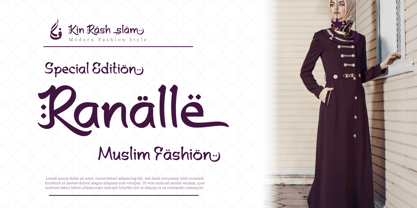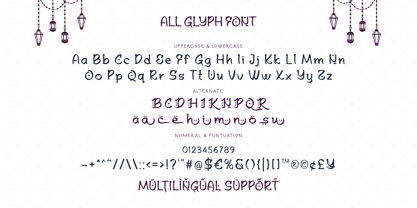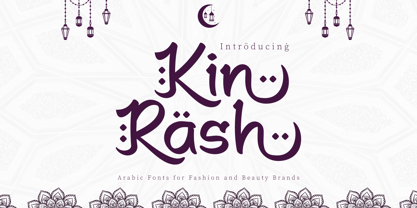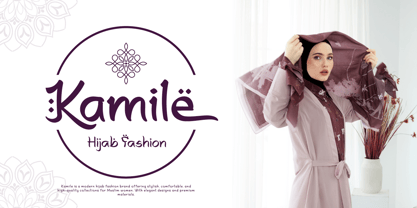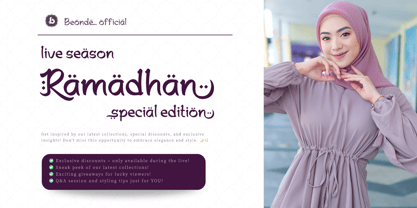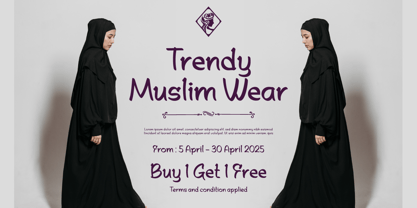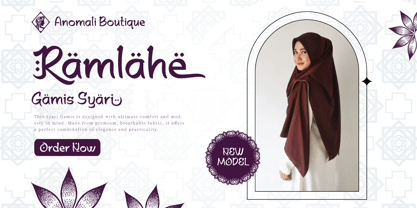
Kin Rash - Arabic Font for Fashion and Beauty Brands is an elegant and sophisticated typeface, created to blend traditional Arabic calligraphy with modern design aesthetics. Perfect for fashion labels, beauty products, and high-end brands, Kin Rash adds a touch of cultural richness and contemporary style. Its graceful curves and subtle details make it ideal for projects that want to convey luxury, elegance, and authenticity.
- Fonts include Multilingual: Support for 85 languages.